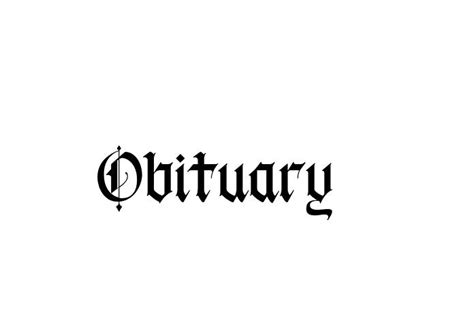
Obituary Font: Style Guide, Examples & Tips
Choosing the right obituary font is a crucial part of honoring the deceased. The font sets the tone and readability of the obituary, impacting how the tribute is received. In this comprehensive guide, we’ll explore the best font choices for obituaries, offering practical tips and examples to help you create a respectful and legible memorial.
Understanding the Importance of Font Choice in Obituaries
Guys, let’s talk about why picking the right font for an obituary is super important. Think of it this way: the font is like the voice of the obituary. It sets the mood and makes sure everyone can easily read and understand the tribute. You want something that’s respectful, clear, and honors the person’s memory well. A bad font choice can make it hard to read, or even give the wrong impression. That’s why taking the time to choose carefully is really worth it. After all, this is a lasting tribute, and you want to get it just right.
When selecting a font, consider the overall tone you wish to convey. A traditional serif font might be appropriate for a formal, solemn obituary, while a cleaner sans-serif font could suit a more modern, celebratory tribute. Readability is paramount; ensure the font is easy to read in both print and digital formats. Also, think about the size – too small, and it strains the eyes; too large, and it looks unprofessional. The goal is to find a font that complements the content and enhances the reader’s experience, making the obituary a fitting and lasting memorial.
Moreover, the font choice can reflect the personality and preferences of the deceased. Did they have a favorite style or period? Incorporating a font that resonates with their tastes can add a personal touch to the obituary. Be mindful of cultural and religious considerations as well. Certain fonts might be more appropriate depending on the background of the individual being honored. Ultimately, the right font helps to tell the story of a life well-lived, providing comfort and closure to those who are grieving. So, let’s dive into some specific fonts that work wonderfully for obituaries, keeping all these important factors in mind.
Best Font Styles for Obituaries
Selecting the best font styles for obituaries involves balancing tradition, readability, and respect. Here are some top recommendations:
Serif Fonts
Serif fonts are often considered classic and traditional, making them a popular choice for obituaries. These fonts have small decorative strokes at the end of each character, which can improve readability by guiding the eye along the text. Some excellent serif fonts for obituaries include:
• Times New Roman : A universally recognized and highly legible font, Times New Roman is a safe and reliable choice for formal obituaries. Its traditional appearance conveys a sense of respect and solemnity.
• Garamond : Known for its elegance and readability, Garamond is a slightly more refined option than Times New Roman. It offers a touch of sophistication while maintaining excellent clarity.
• Georgia : Designed for screen readability, Georgia is an excellent choice for online obituaries. Its clear, well-defined characters make it easy to read, even at smaller sizes.
• Baskerville : With its classic and refined appearance, Baskerville adds a touch of elegance to any obituary. Its balanced letterforms and excellent readability make it a timeless choice.
Sans-Serif Fonts
Sans-serif fonts , characterized by their clean, minimalist design, offer a modern alternative to serif fonts. They lack the small decorative strokes found in serif fonts, giving them a more contemporary look. Here are some great sans-serif options for obituaries:
• Arial : A widely available and highly legible font, Arial is a practical choice for obituaries. Its clean lines and simple design ensure readability in both print and digital formats.
• Helvetica : Known for its clean and modern aesthetic, Helvetica is a versatile font that works well for obituaries. Its neutral appearance ensures that the focus remains on the content.
• Verdana : Designed specifically for on-screen readability, Verdana is an excellent choice for online obituaries. Its wide letter spacing and clear characters make it easy to read on digital devices.
• Calibri : A modern and clean sans-serif font, Calibri offers a fresh alternative to traditional choices. Its rounded letterforms and excellent readability make it a popular option for contemporary obituaries.
Script and Decorative Fonts (Use Sparingly)
While script and decorative fonts can add a personal touch to an obituary, they should be used sparingly. These fonts are often less legible than serif and sans-serif fonts, so it’s best to use them only for headings or special accents. If you choose to use a script or decorative font, make sure it is easy to read and complements the overall design.
When considering these fonts, think about how they reflect the personality of the person being honored. For example, a clean and modern sans-serif font might be perfect for someone who appreciated minimalism, while a classic serif font could be more suitable for someone with traditional tastes. The key is to choose a font that enhances the tribute and makes it easy for people to connect with the life story being shared. And remember, guys, always prioritize readability to ensure that the obituary is accessible to everyone.
By following these tips, you can ensure that your obituary is readable and accessible to everyone, regardless of the medium they use to view it. Remember, the goal is to honor the deceased in a way that is both respectful and easy to understand.
Choosing the right font for an obituary is a thoughtful process that enhances the tribute to a loved one. By considering factors like readability, tone, and medium, you can create a memorial that honors their life and provides comfort to those who mourn. Always prioritize clarity and respect in your font selections.